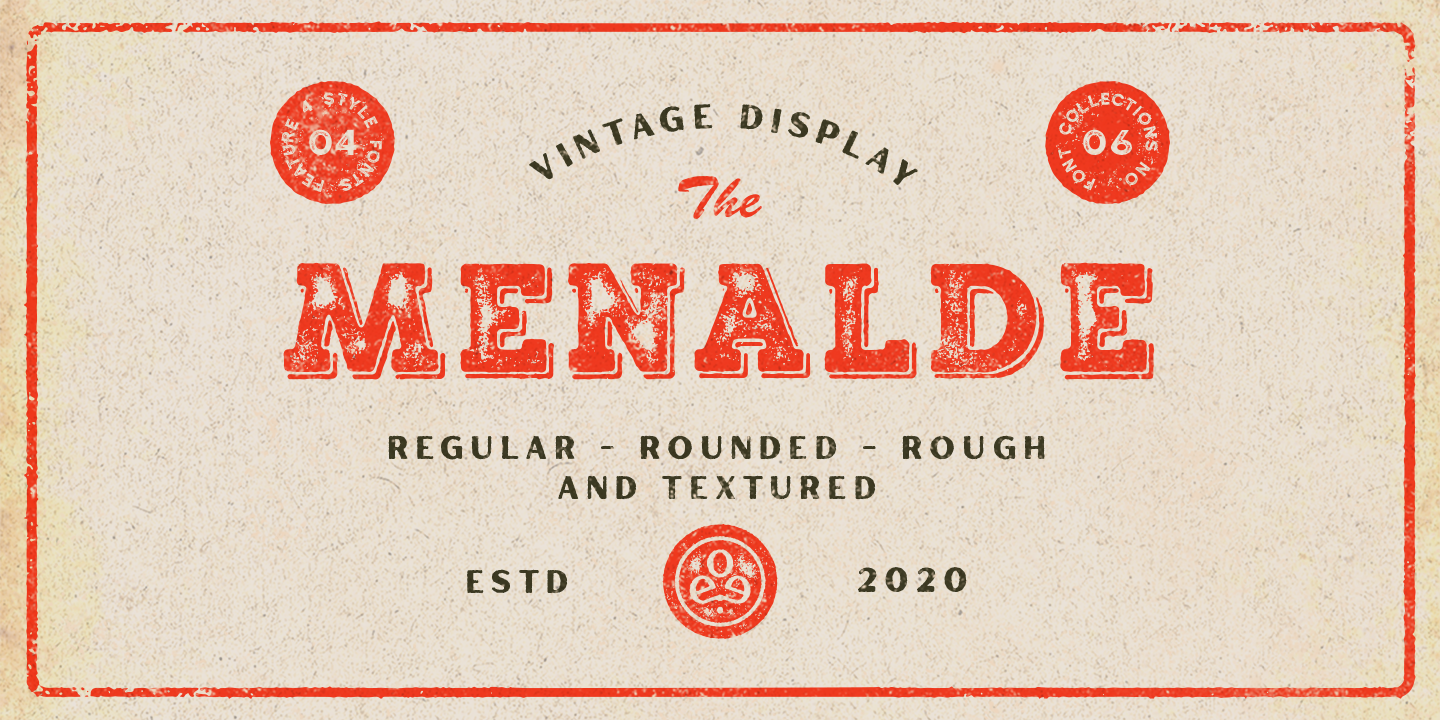
Menalde Font excels in sophisticated design applications including contemporary brand identity, modern architectural presentations, upscale business communications, refined editorial layouts, cultural institution materials, progressive corporate branding, elegant web typography, and distinguished advertising campaigns that require typography with cultured character and sophisticated modernism.
What makes Menalde Font exciting is its remarkable ability to combine geometric precision with humanistic warmth, creating letterforms that feel both intellectually sophisticated and emotionally accessible. This distinguished typeface features refined characteristics with cultural subtlety and contemporary proportions that instantly communicate intelligence, sophistication, and progressive thinking. The font's cultured personality and modern appeal make it perfect for brands seeking to establish intellectual credibility and communicate values of sophistication, cultural awareness, and contemporary excellence to educated audiences.
Menalde Font family encompasses multiple weights and refined variations designed for comprehensive sophisticated communication. The family typically includes thin, light, regular, medium, bold, and black weights, complemented by elegant italics, refined alternates, and extensive character sets with cultural elements that enhance its sophisticated aesthetic and provide maximum intellectual flexibility.
Contemporary cultural designers consistently select Menalde Font Free Download for projects requiring typography that embodies intellectual sophistication and cultural refinement. This distinguished typeface adapts beautifully across cultural applications, from digital educational platforms to premium institutional materials, delivering consistent brand messaging with unmistakable intellectual authority and sophisticated appeal. The font's thoughtfully crafted letterforms ensure exceptional readability while maintaining the cultured presence that sophisticated brands demand. Educational and cultural agencies worldwide rely on this refined typeface to communicate brand values of intelligence, cultural sophistication, and intellectual excellence. Elevate your intellectual presence with Menalde Font and create compelling visual communications that resonate with audiences who appreciate cultural sophistication, intellectual depth, and the refined elegance of contemporary design that bridges tradition and innovation.